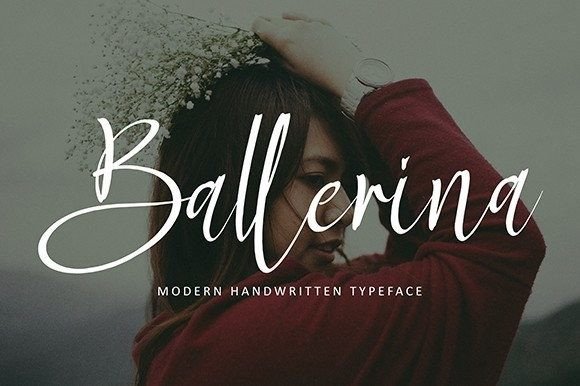
About Ballerina Font
“Ballerina” is a modern handwritten font designed to enhance a variety of design projects. Whether you’re working on quotes, logos, blog headers, posters, branding, lettering, invitations, stationery, or any other creative endeavor, this font is crafted to capture everyone’s attention and bring a contemporary touch to your designs.
The modern and handwritten style of “Ballerina” contributes to its versatility, making it suitable for a wide range of applications. The font’s clean and contemporary aesthetic allows it to seamlessly integrate into diverse design contexts, providing a fresh and eye-catching look.
By incorporating “Ballerina” into your projects, you’ll notice how it adds a modern touch and captures the attention of your audience. Its adaptability makes it a valuable asset for designers seeking a modern handwritten font for various creative applications.
In summary, “Ballerina” is more than just a font; it’s a design tool meticulously crafted to elevate your projects. Whether you’re working on branding, quotes, or other creative ventures, let this modern handwritten font be the key to capturing attention and infusing a modern vibe into your designs.